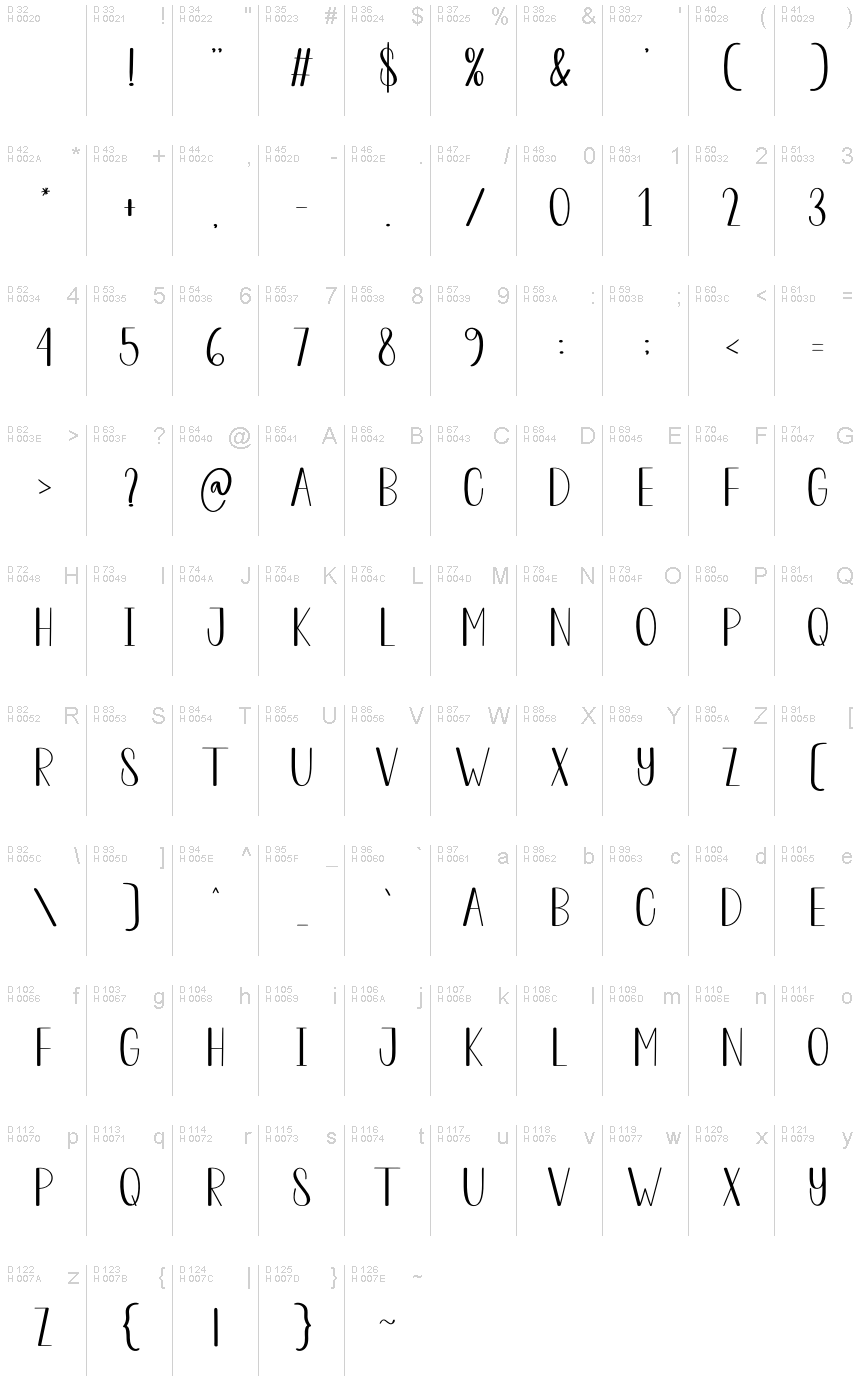
Illusion Magic
Illusion Magic, a creation of designer Andi Moz, captivates with its sweet and friendly handwritten flair. This condensed font exudes a playful charm, its strokes dancing across the page with a delightful, almost whimsical energy. The elegant ligatures and subtle flourishes lend a sense of effortless sophistication, while the overall impression is one of warmth and approachability.
The versatility of Illusion Magic shines through, making it an ideal choice for a variety of design projects. Its charming aesthetic lends itself beautifully to wedding invitations, greeting cards, and any other design that calls for a touch of playfulness and personality. Whether you're crafting a heartfelt message or adding a creative flourish to your branding, Illusion Magic is poised to capture the hearts of your audience.